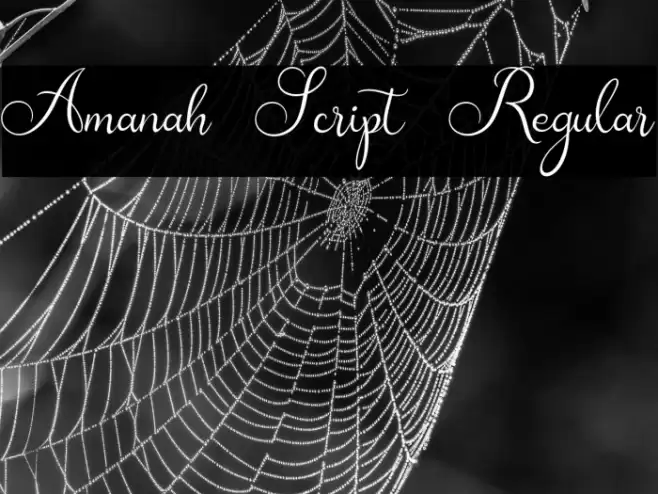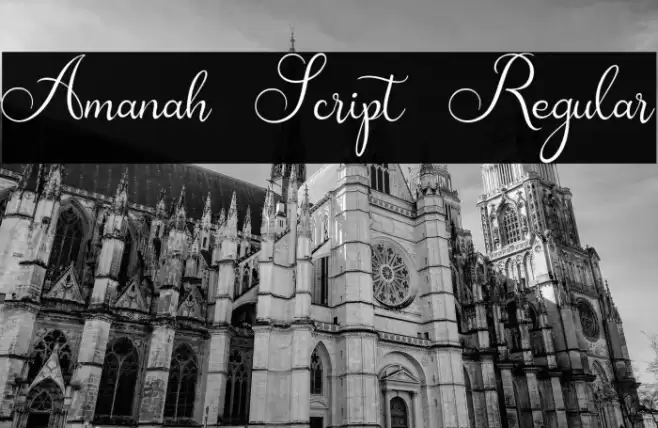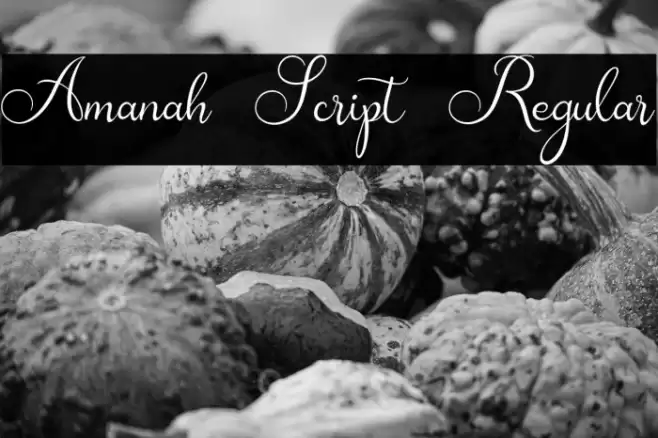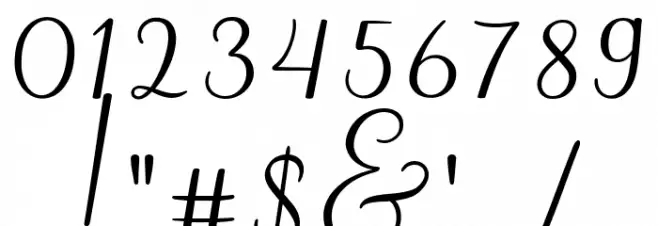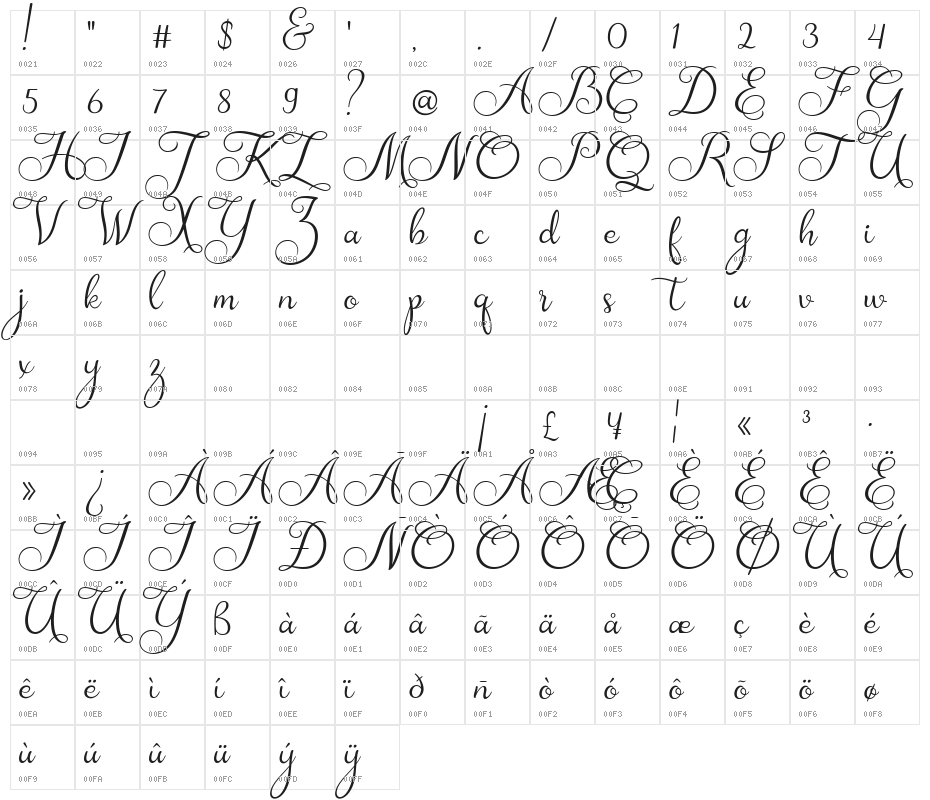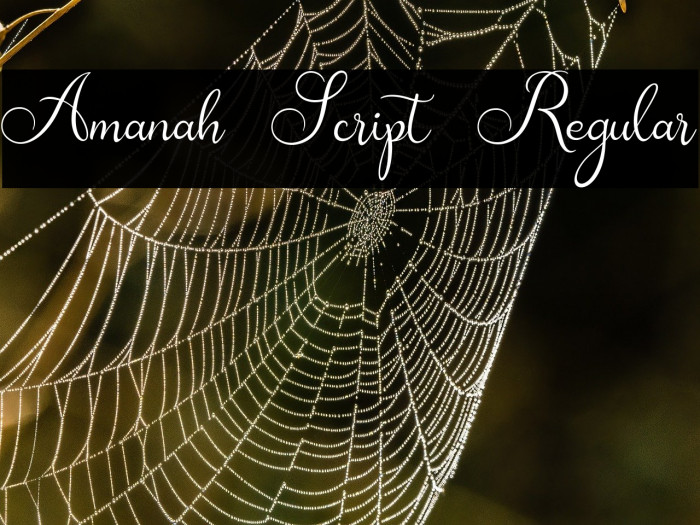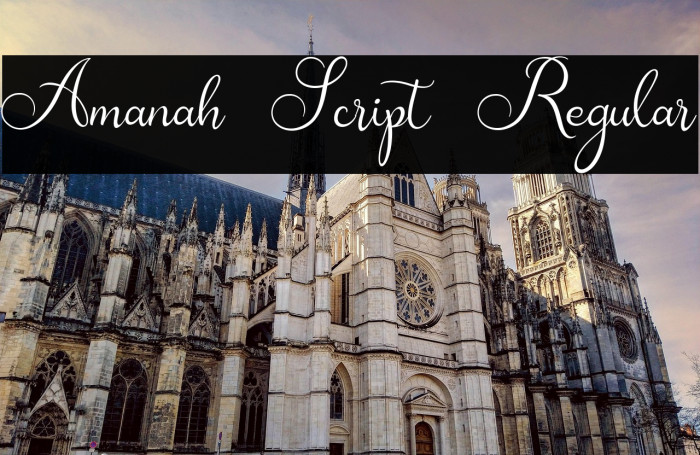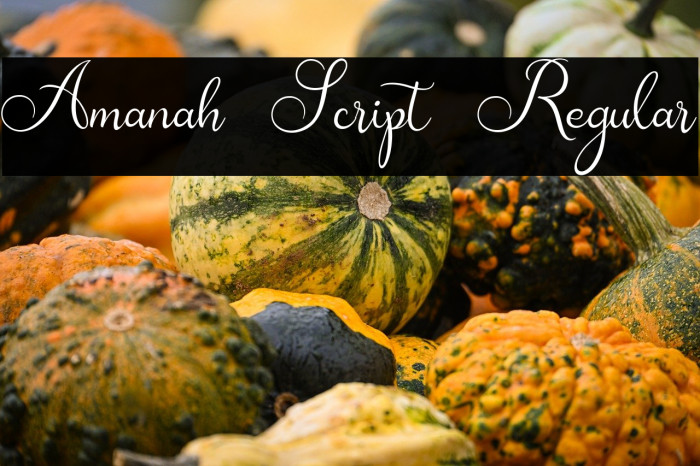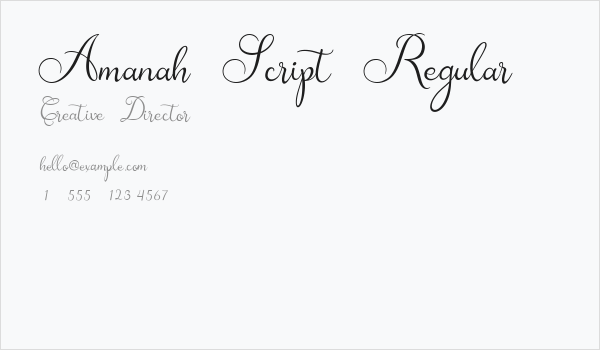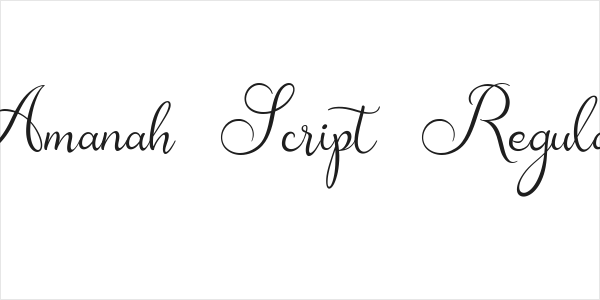
Amanah Script Regular Font
Amanah Script Regular Description
This elegant script font features a flowing, cursive style with intricate loops and swashes that give it a sophisticated and graceful appearance. The uppercase letters are particularly ornate, with decorative flourishes that add a touch of luxury and refinement. The lowercase letters maintain a consistent flow, enhancing readability while preserving the font's artistic flair. Numbers and special characters are designed with the same attention to detail, ensuring a cohesive look across all text elements. This font is perfect for projects that require a touch of elegance and sophistication.
An elegant script font with intricate loops and swashes, perfect for sophisticated designs from Regular fonts.
- Proposed Projects: Ideal for wedding invitations, luxury branding, elegant packaging, and high-end product labels.
- Overall Style: Elegant, Decorative
- Use Case: Logos, Invitations, Branding